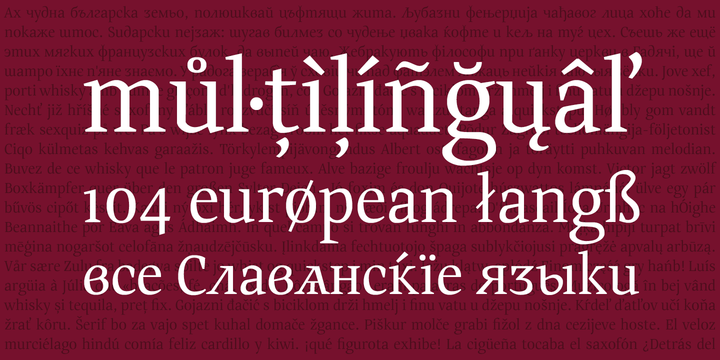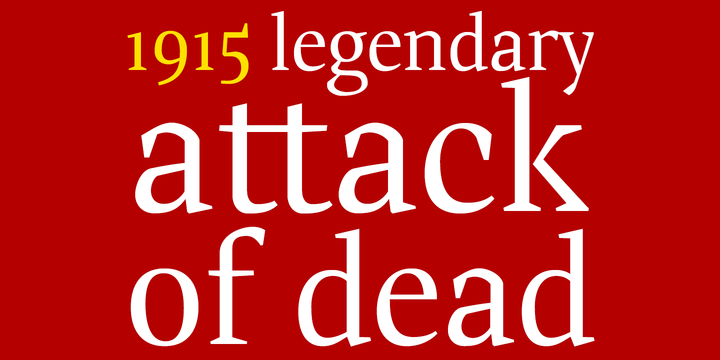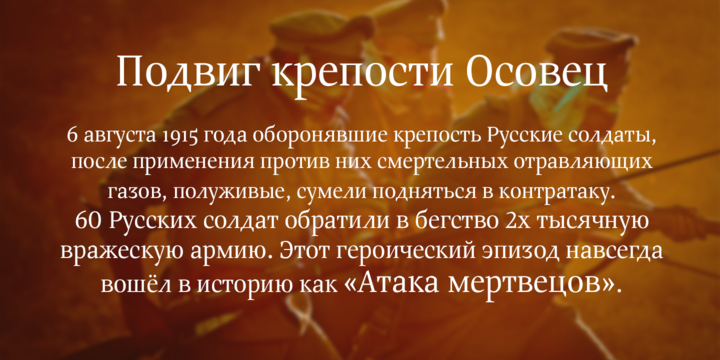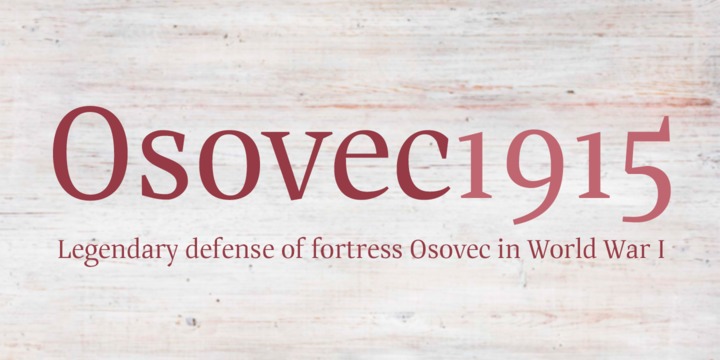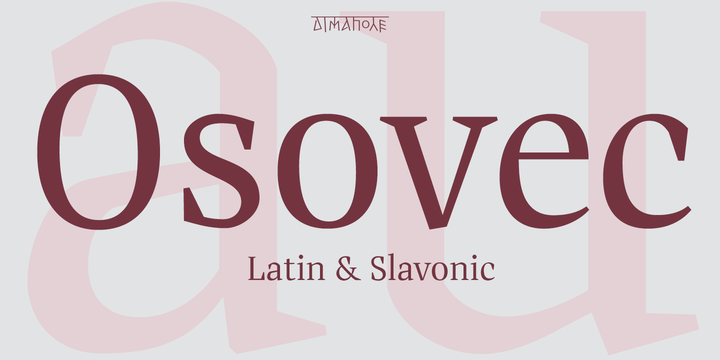
Font is dedicated to the glory of the human spirit and honor. Osovec is a fortress of the World War I. 6 August 1915 the defenders of the fortress, the Russian soldiers, against whom used poison gas, half-dead, was able to rise to the counter.
60 Russian soldiers routed the 2 thousandth of an enemy army. This heroic episode is forever gone down in history as"Attack of the dead". The font contains more than 700 glyphs, support for all 104 European languages, all Slavic languages, a variety of OT features, including ligatures, old numerals, alternatives, ordinals, and many others.